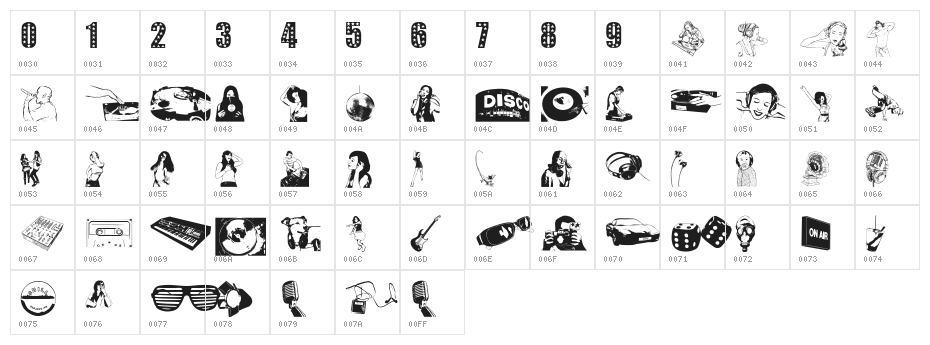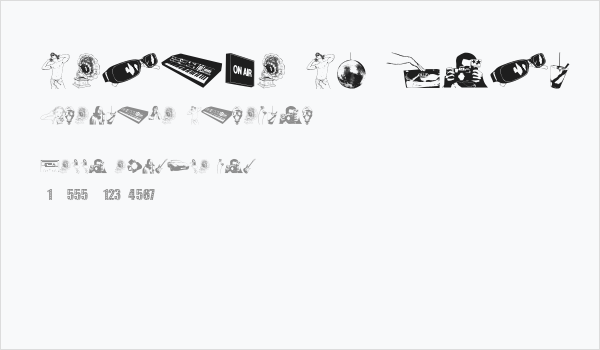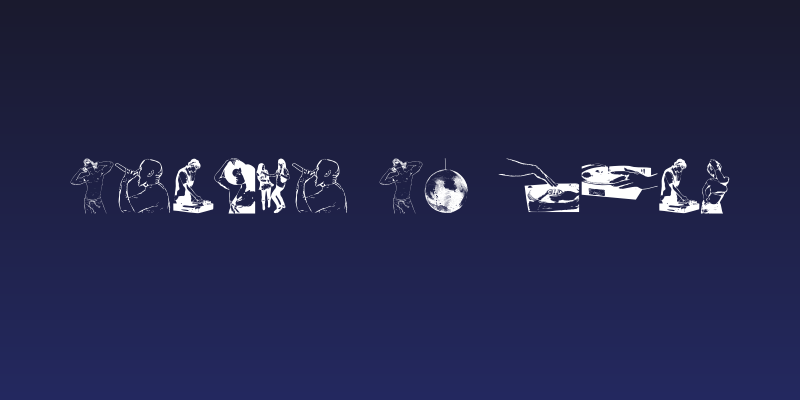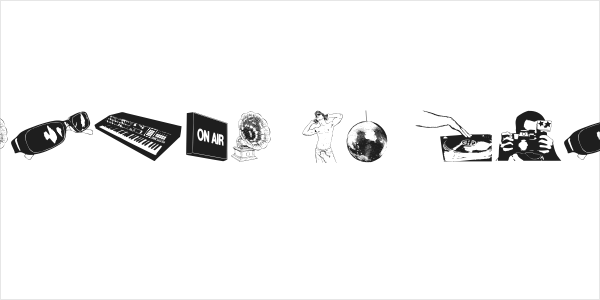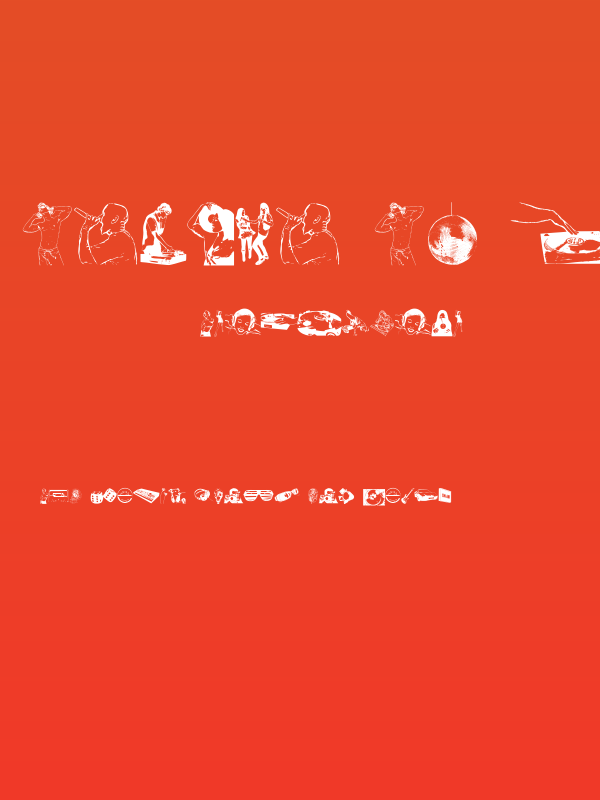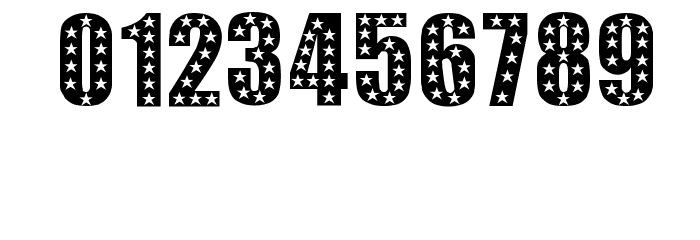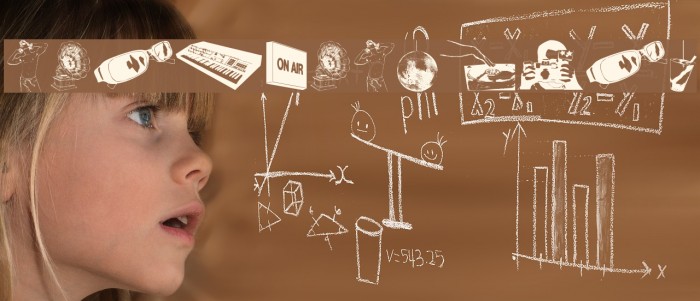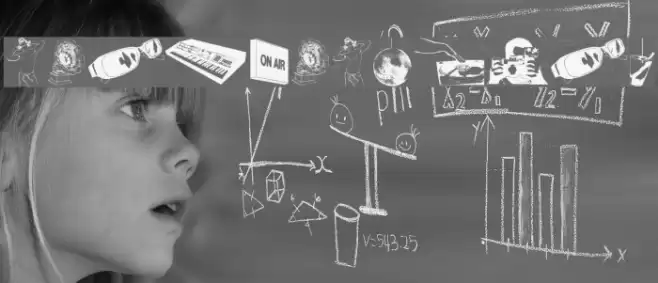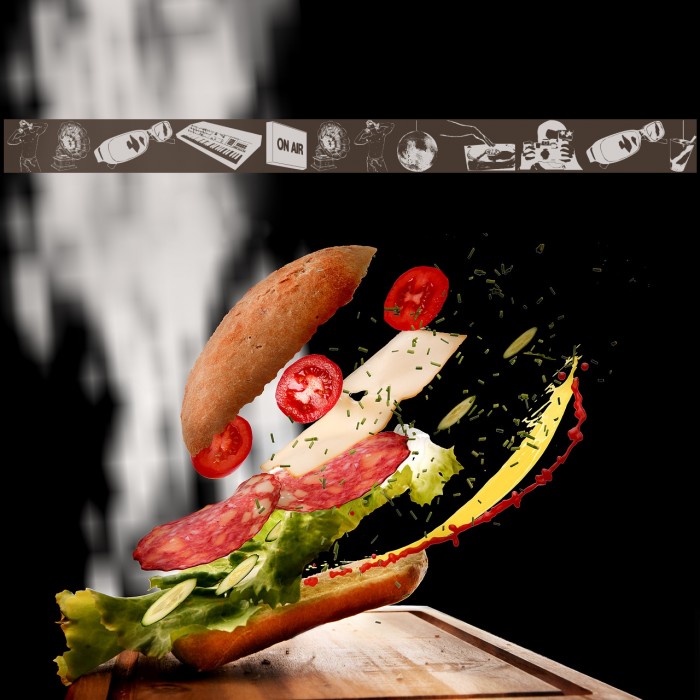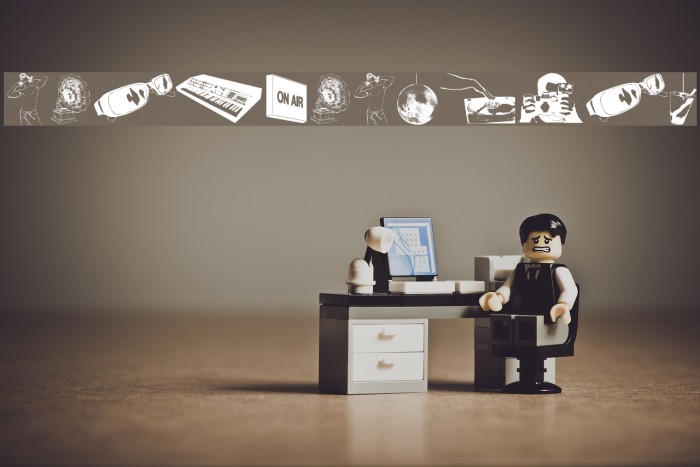
Denise DJ Font Font
Denise DJ Font Description
This is not a traditional font but rather a collection of DJ and music-themed illustrations. The images depict various elements related to music and DJ culture, such as turntables, headphones, microphones, and dancing figures. The numbers are styled with a bold, star-filled design, adding a playful and dynamic touch. The overall style is decorative and thematic, making it suitable for projects that require a strong visual impact related to music or entertainment.
| Use Case | Logos, Posters, Event Flyers |
| Proposed Projects | Ideal for music event posters, DJ flyers, album covers, and entertainment-themed graphics. |